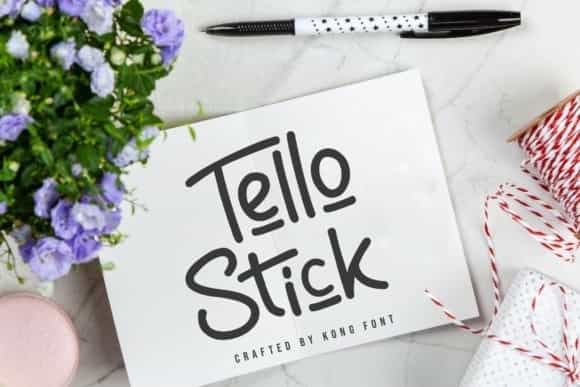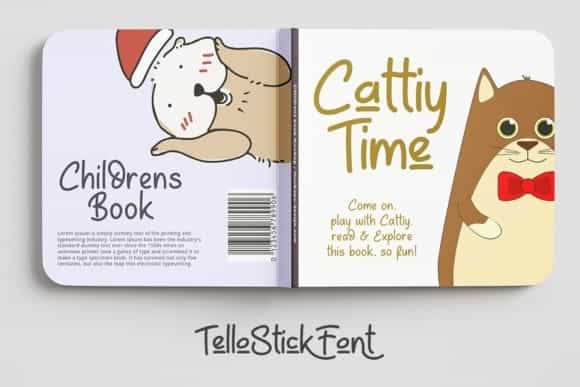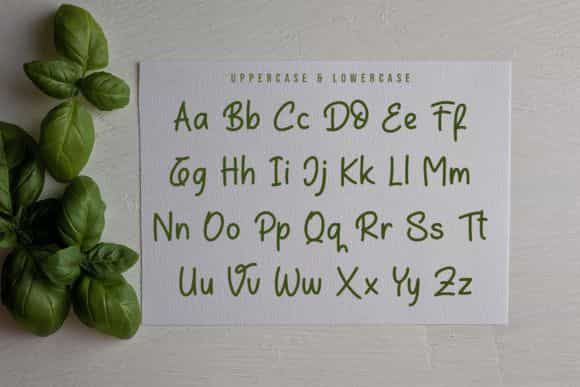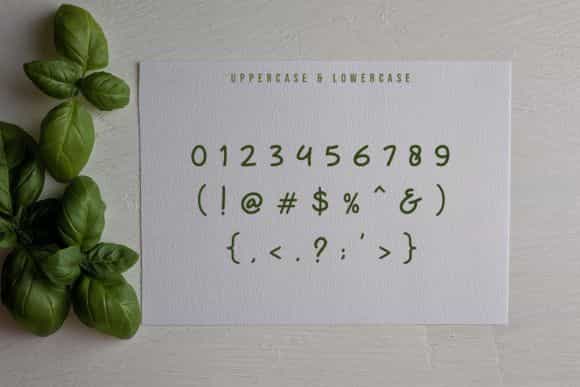
Tello Stick, a new monoline script type font by fontkong is here, with classic morpheus with copper plate design and natural style. Tello Stick is ideal for Apparel Brand, any type of greeting cards, Painting design style drawings or any precise design job that requires a tender and friendly touch.